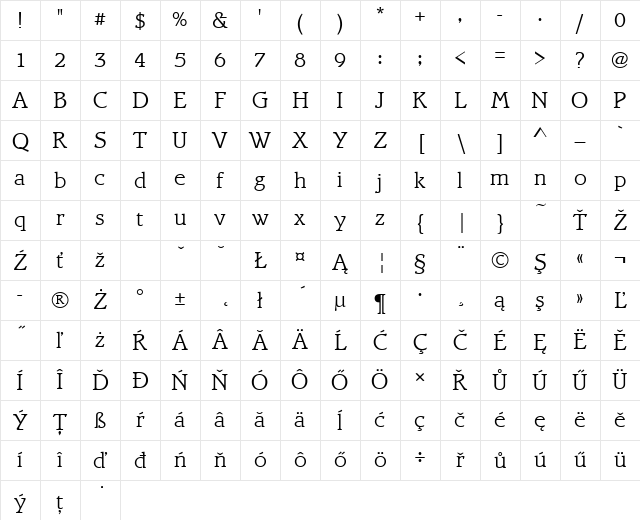
Complete BramleyTEELig Regular glyph index. Displaying only characters natively supported by BramleyTEELig Regular font.
BramleyTEELig is a composed and adaptable typeface that performs quietly and consistently across a wide range of design contexts.